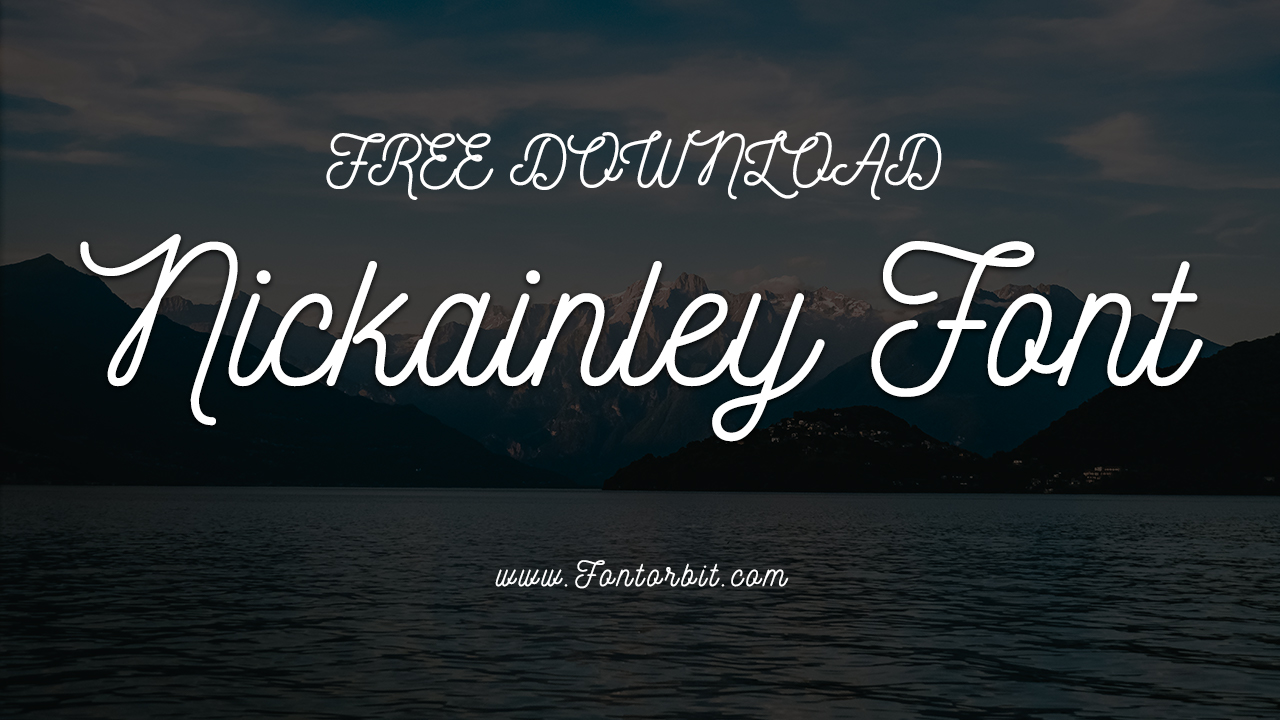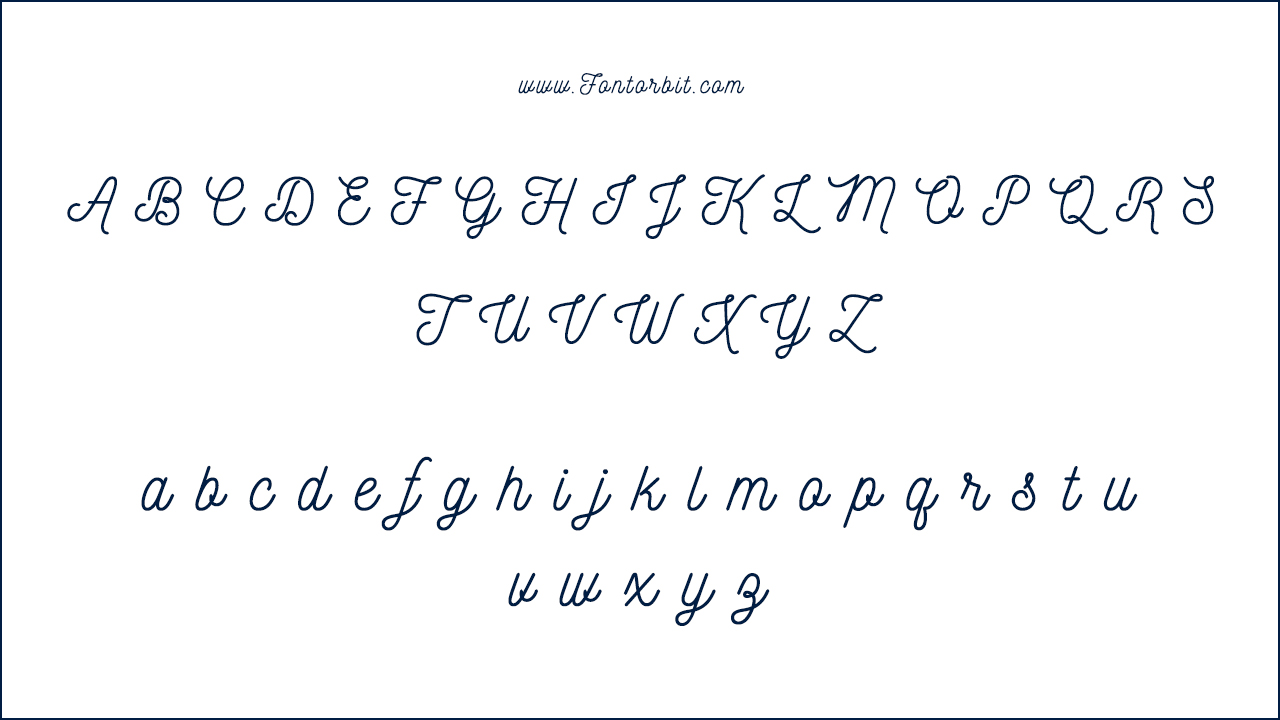
Nickainley font is a stylish and versatile monoline script handwriting font designed by Seniors Studio. With its elegant, classic lines and subtle vintage charm, Nickainley is a popular choice for various design projects, especially those that require a personal and nostalgic touch. Its versatility makes it suitable for both formal and casual applications, ranging from branding to wedding invitations.
Nickainley falls into the script font category and features a monoline, hand-lettered appearance that brings a warm, personal feel to any design. The font includes a comprehensive character set that covers uppercase and lowercase letters, numerals, basic punctuation, and a range of special characters.
Though Nickainley is primarily available as a single style, its clean, continuous line work makes it adaptable to a variety of contexts, and it pairs well with both serif and sans-serif typefaces for added design flexibility.
You can apply Nickainley, a versatile script font, to a wide range of design projects. Its classic, vintage style makes it particularly effective in scenarios where an elegant yet approachable feel is desired. Some suitable applications for Nickainley include:
- Wedding Invitations
- T-Shirts
- Letterheads
- Labels
- Banners
Nickainley is a timeless and adaptable script font that excels in various design contexts. Whether you’re working on digital or print media, this font provides the charm and personality needed to bring your creative vision to life.
Its classic monoline style, combined with its vintage undertones, makes it a go-to choice for designers seeking a warm, personal, and nostalgic look.
3.What Font Goes Well With Nickainley?
Nickainley pairs well with clean, sans-serif fonts like Open Sans or Lato for a balanced look. These fonts provide a modern contrast to Nickainley’s casual, script style, making them ideal for creating professional and appealing designs.
4.When Was The Nickainley Typeface Created?
Nickainley was created by Seniors Studio in 2015. Since its release, it has been widely downloaded and used in various design projects due to its versatile and appealing style.